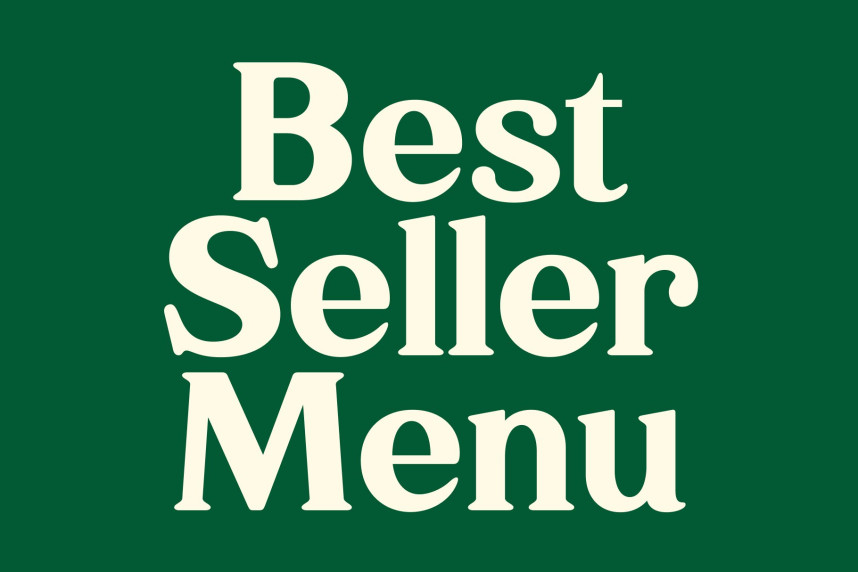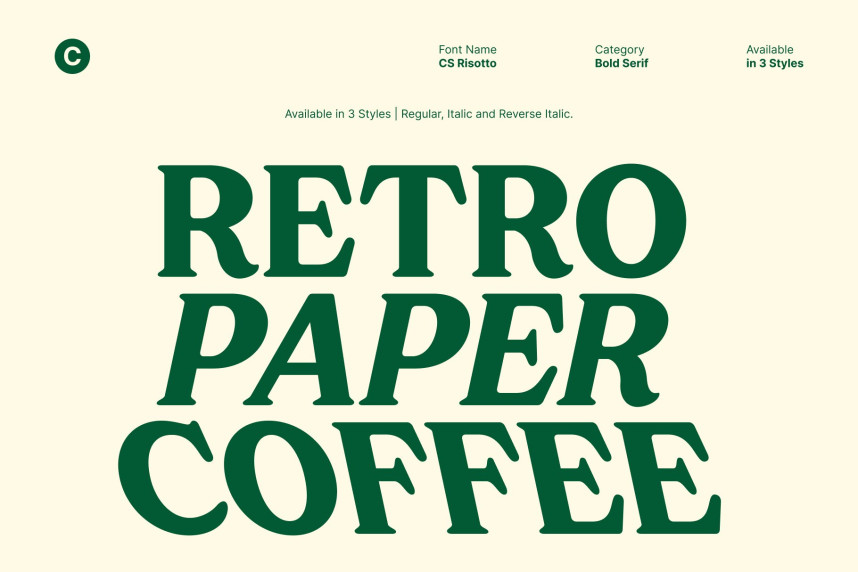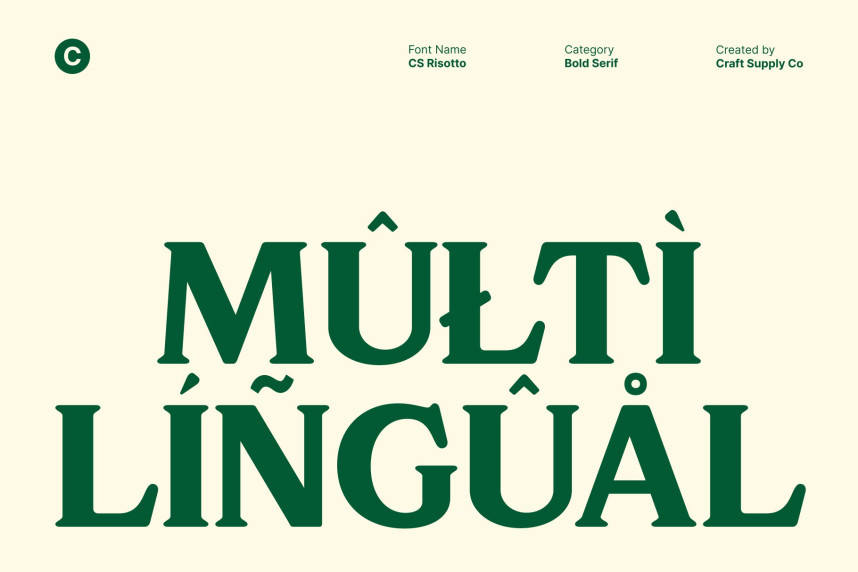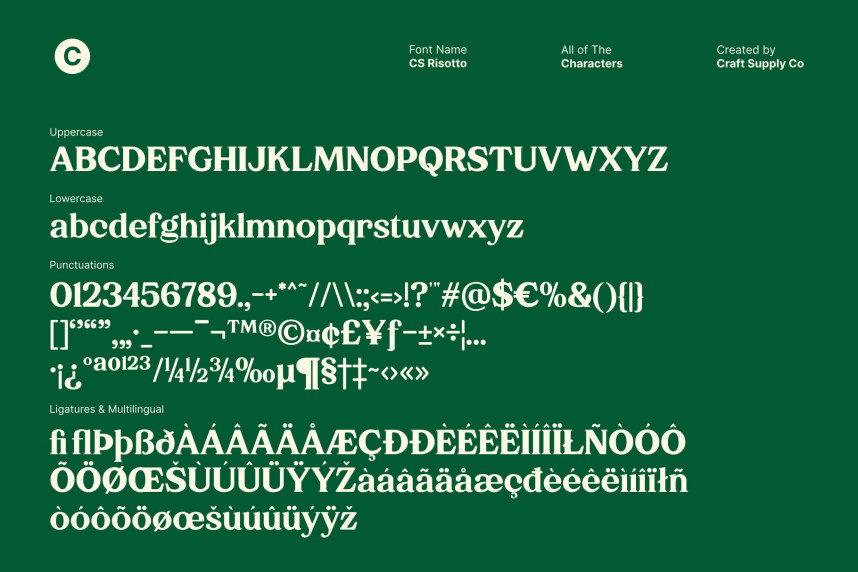
CS Risotto Font
CS Risotto Font – Retro Warmth with Modern Energy A Retro Display Font with Bold Character. This font draws inspiration from timeless retro typography, bringing the beloved shapes of the past into a fresh, modern context. Its bold, friendly forms capture the spirit of classic lettering while introducing contemporary clarity. This balance of nostalgia and modernity makes the font instantly recognizable and highly expressive in any visual setting.